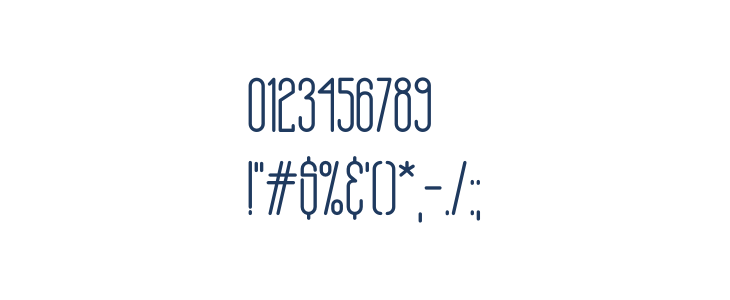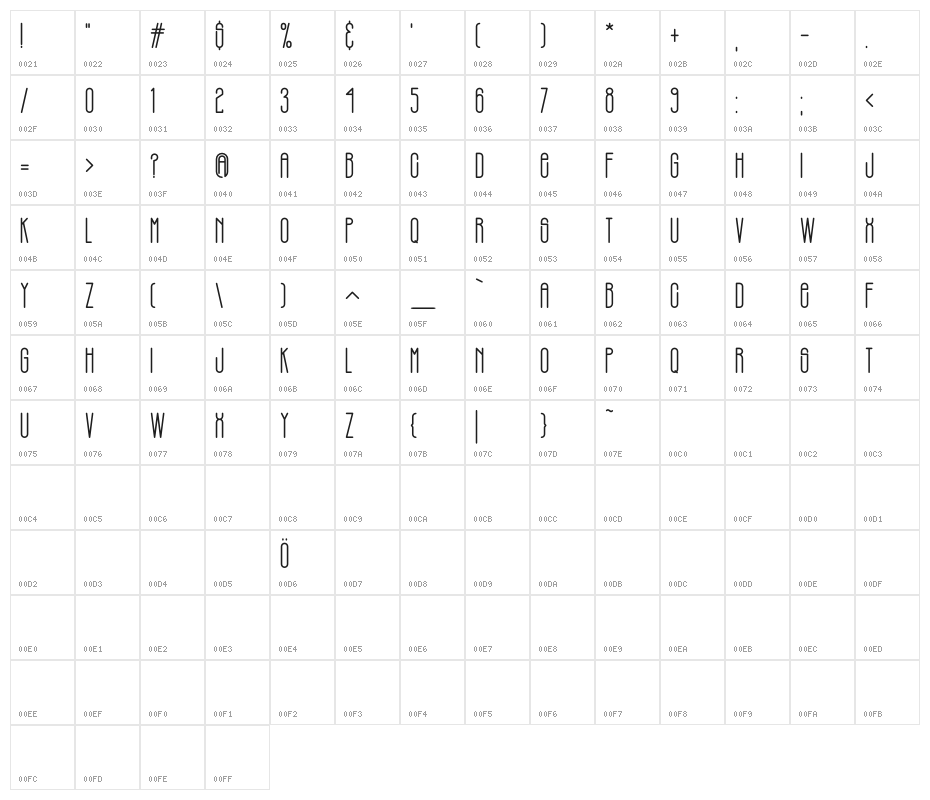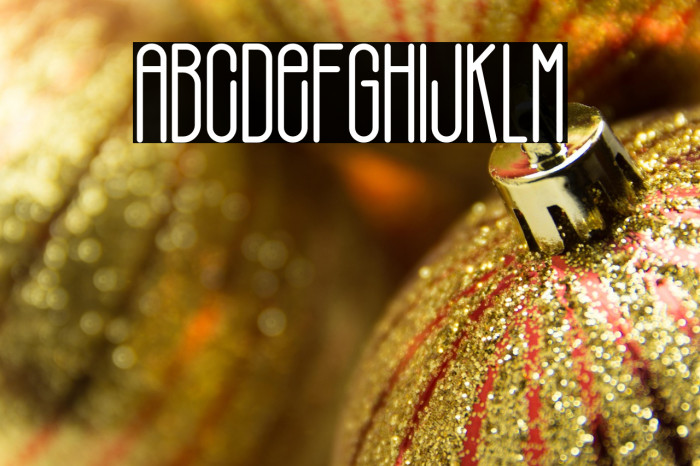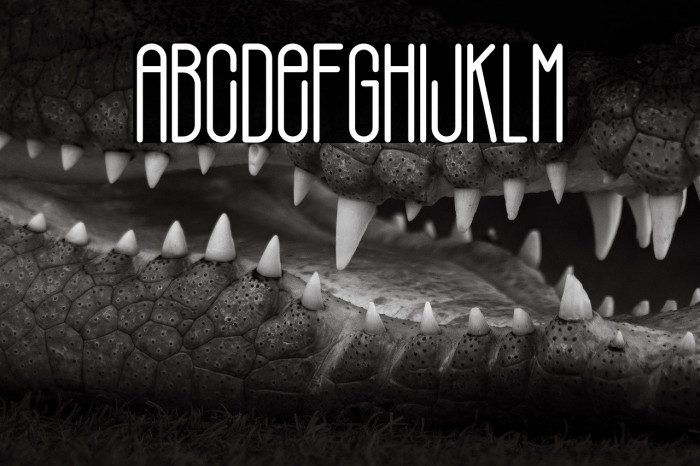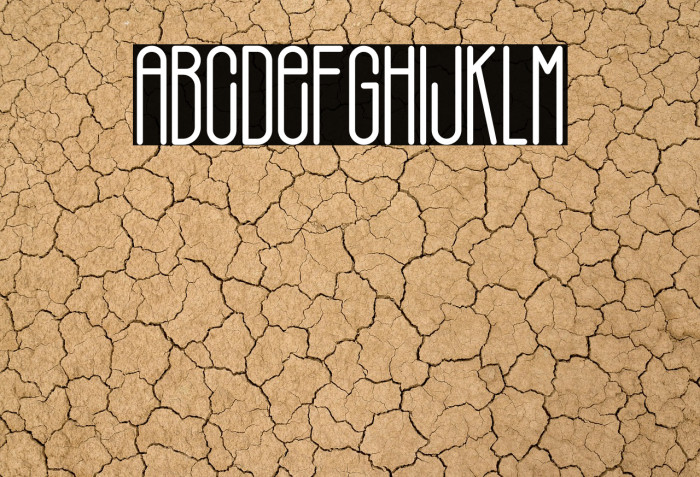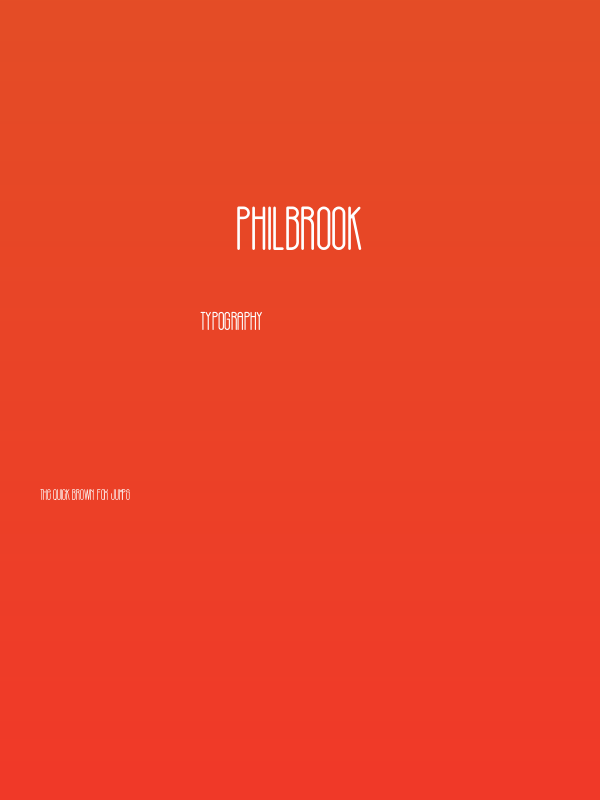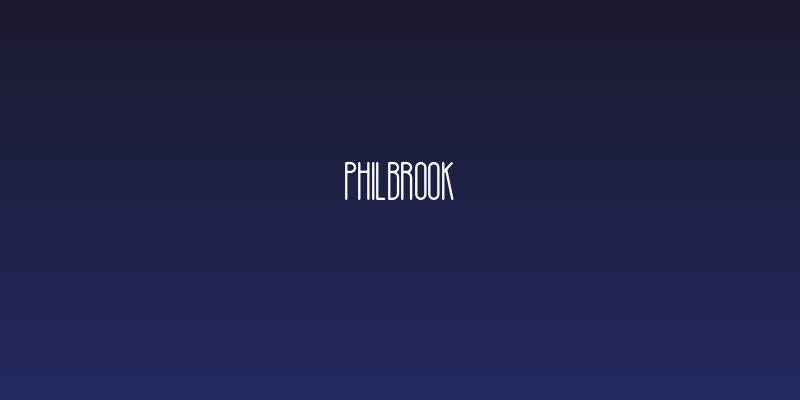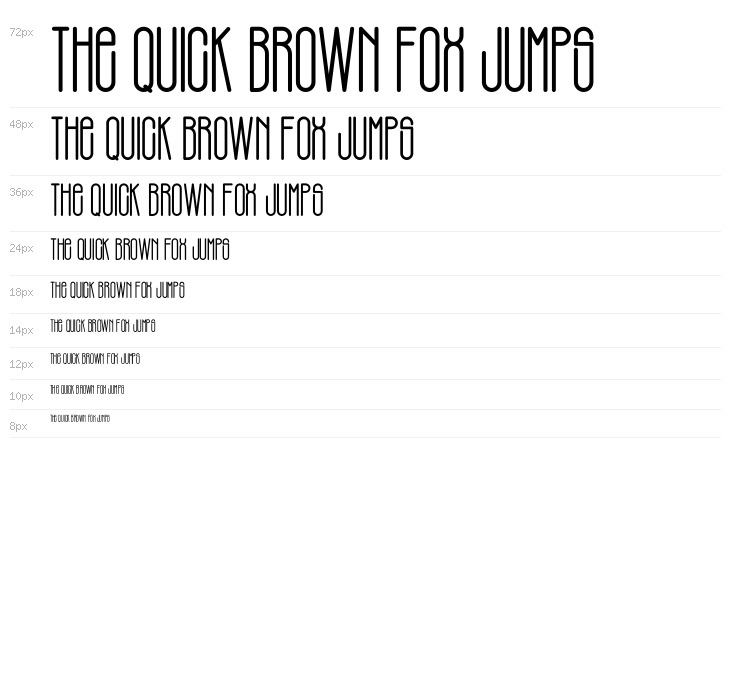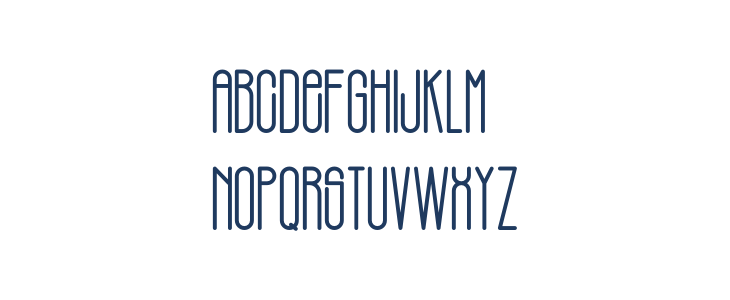
PHILBROOK Font
PHILBROOK Description
This font features a sleek, elongated design with a modern and minimalistic aesthetic. The characters are tall and narrow, with consistent line thickness throughout, giving it a clean and streamlined appearance. The uppercase and lowercase letters maintain a uniform height, contributing to its cohesive look. The numerals and special characters are designed to match the overall style, ensuring visual harmony across all elements. The font's simplicity and elegance make it versatile for various design applications.
Proposed ProjectsIdeal for branding, editorial design, packaging, and digital media where a modern and clean look is desired.